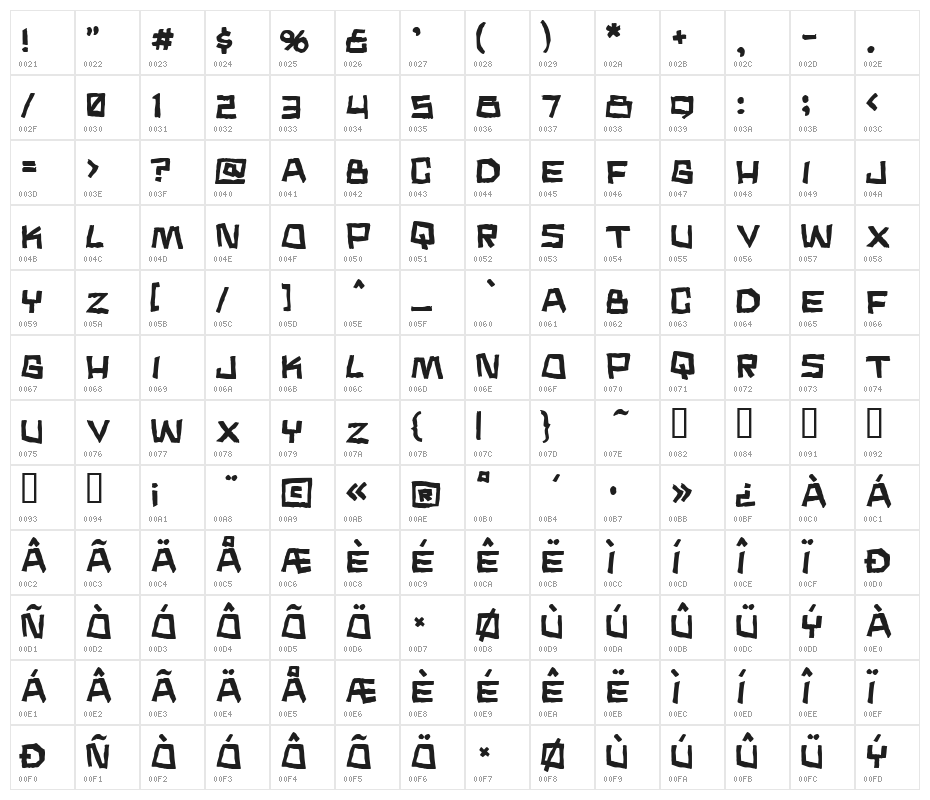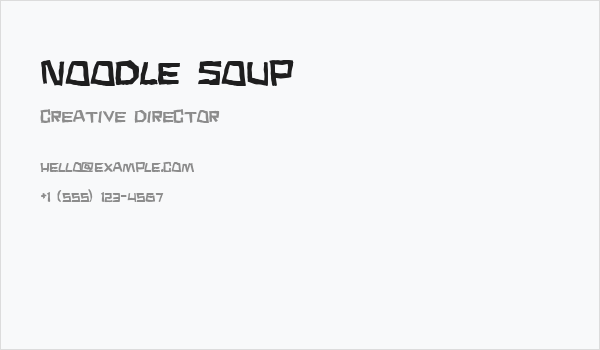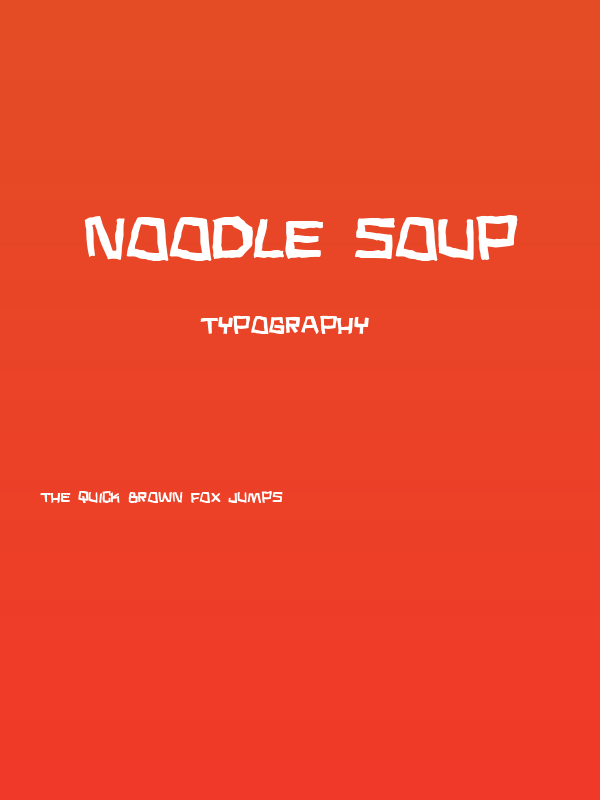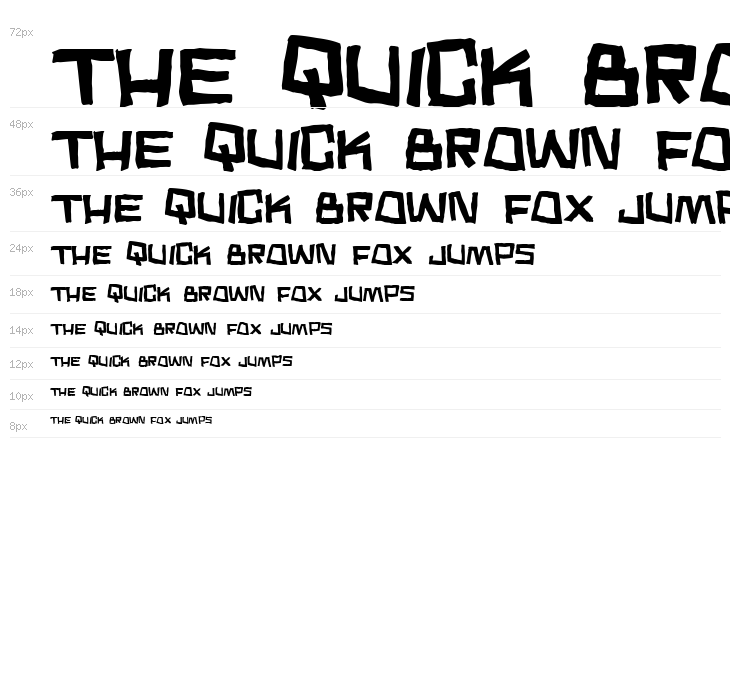
Noodle soup Font
Noodle soup Description
This font features a bold, hand-drawn style with a playful and slightly chaotic appearance. The characters are irregular and have a rough, textured look, giving them a unique and artistic feel. The uppercase and lowercase letters maintain a consistent style, with thick strokes and uneven edges that add to the font's quirky charm. The numbers and special characters follow the same design principles, ensuring a cohesive look across all glyphs. This font is ideal for projects that require a fun and informal touch, such as children's book covers, comic strips, or creative posters.
| Proposed Projects | Ideal for children's books, comic strips, creative posters, and informal branding. |